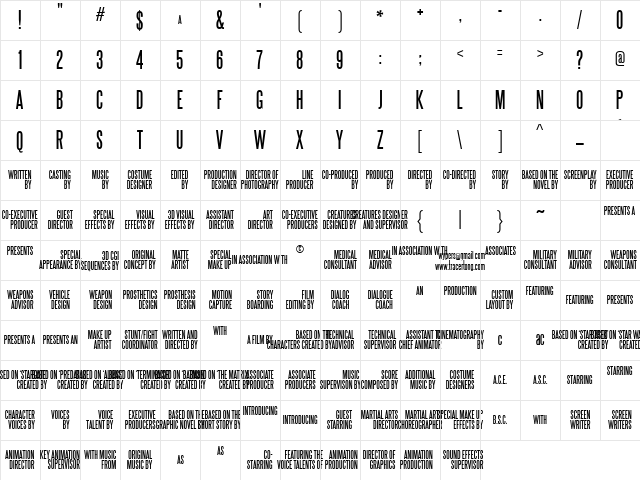
Steel Tongs Regular Free Font
Steel Tongs Regular
Foundry: TracerTong
Steel Tongs Family
Design Context for Steel Tongs
Steel Tongs is a composed and adaptable typeface that performs quietly and consistently across a wide range of design contexts.